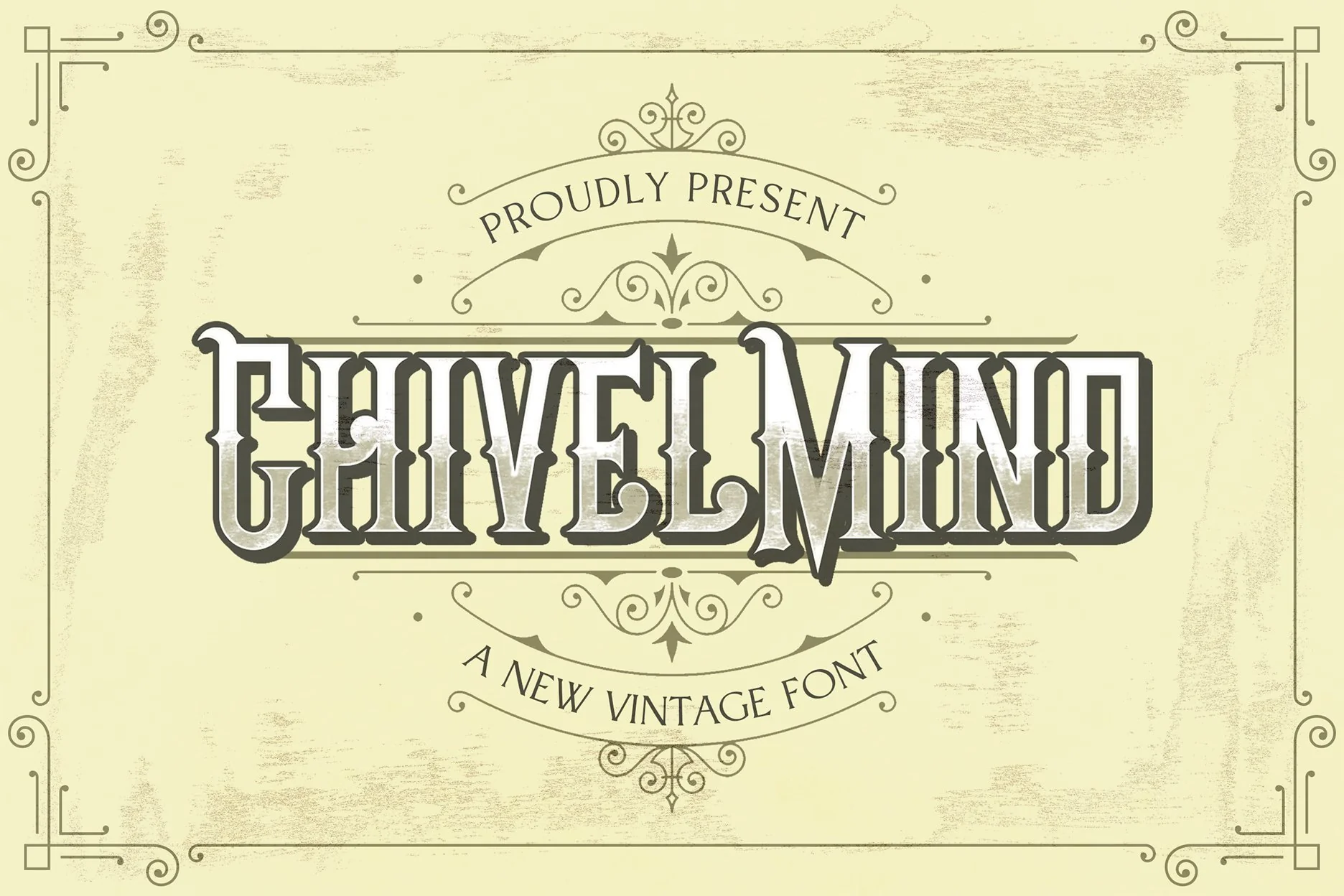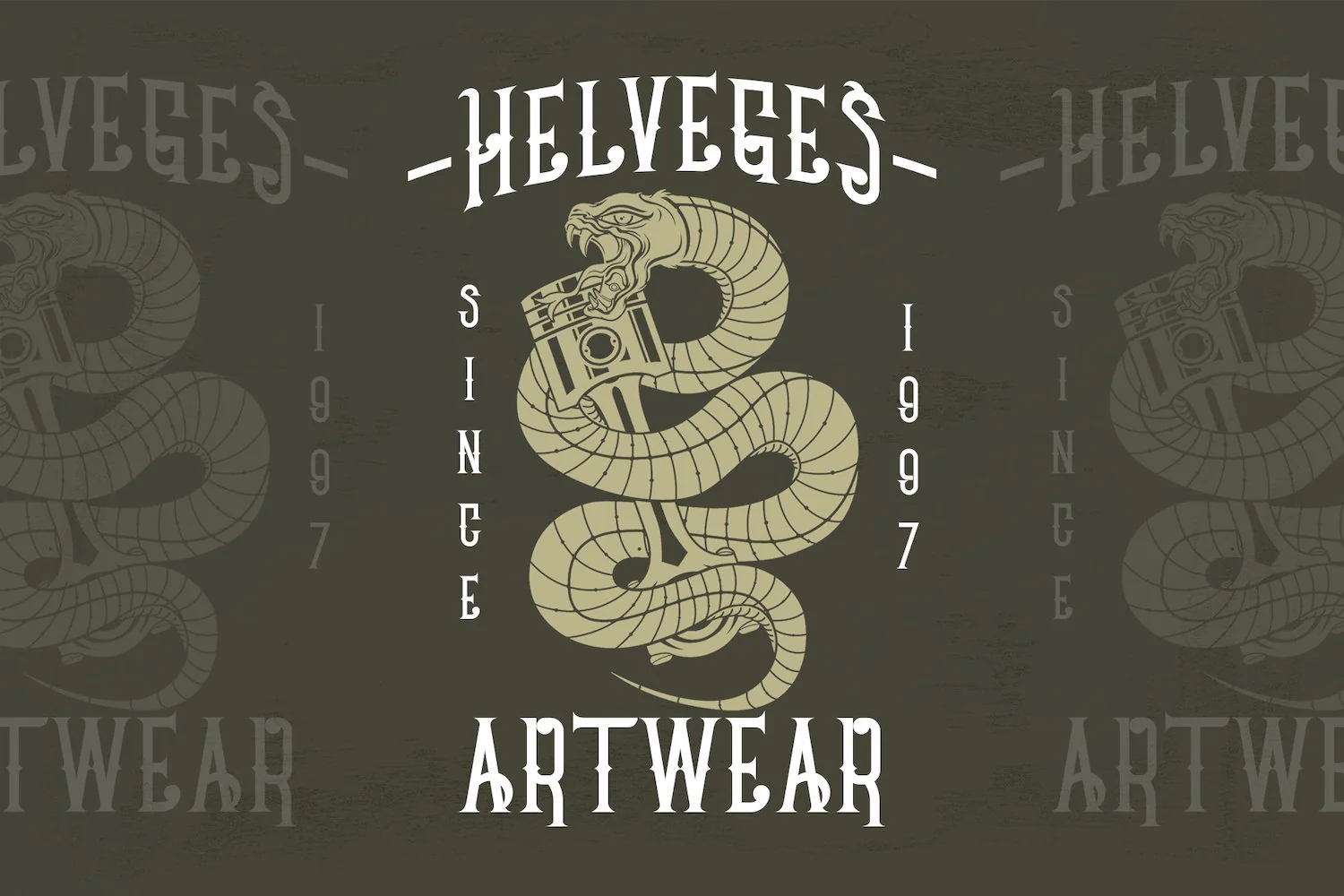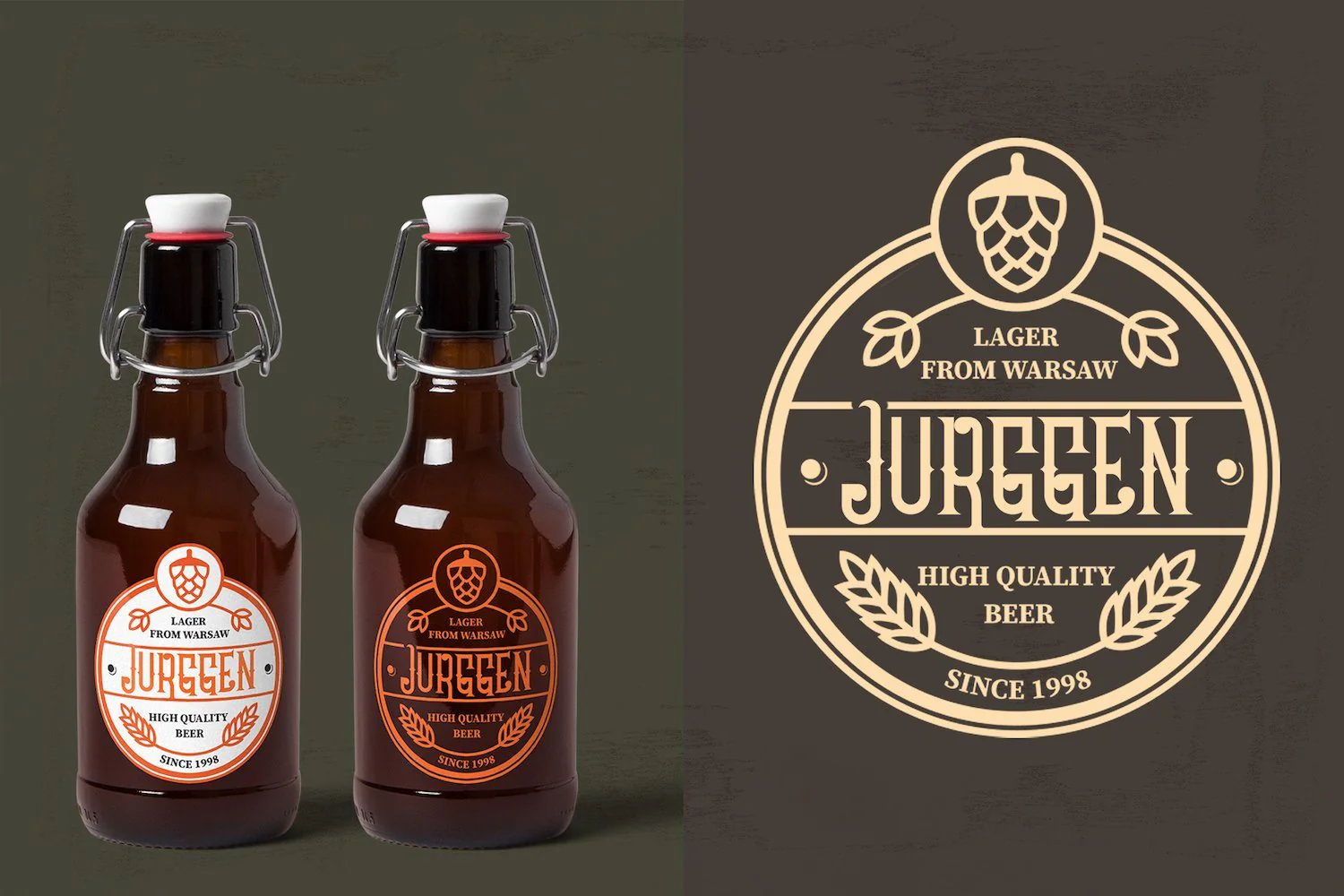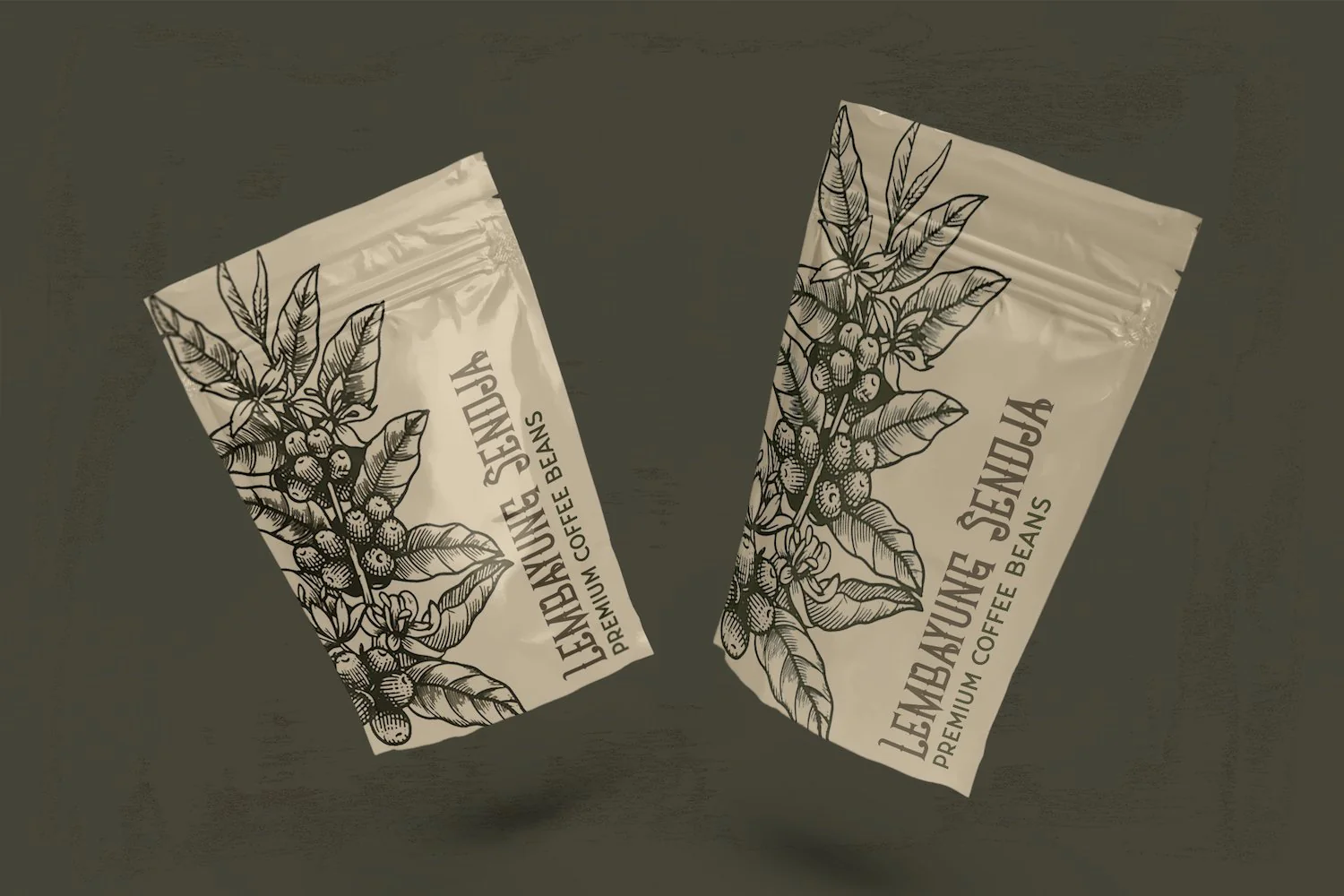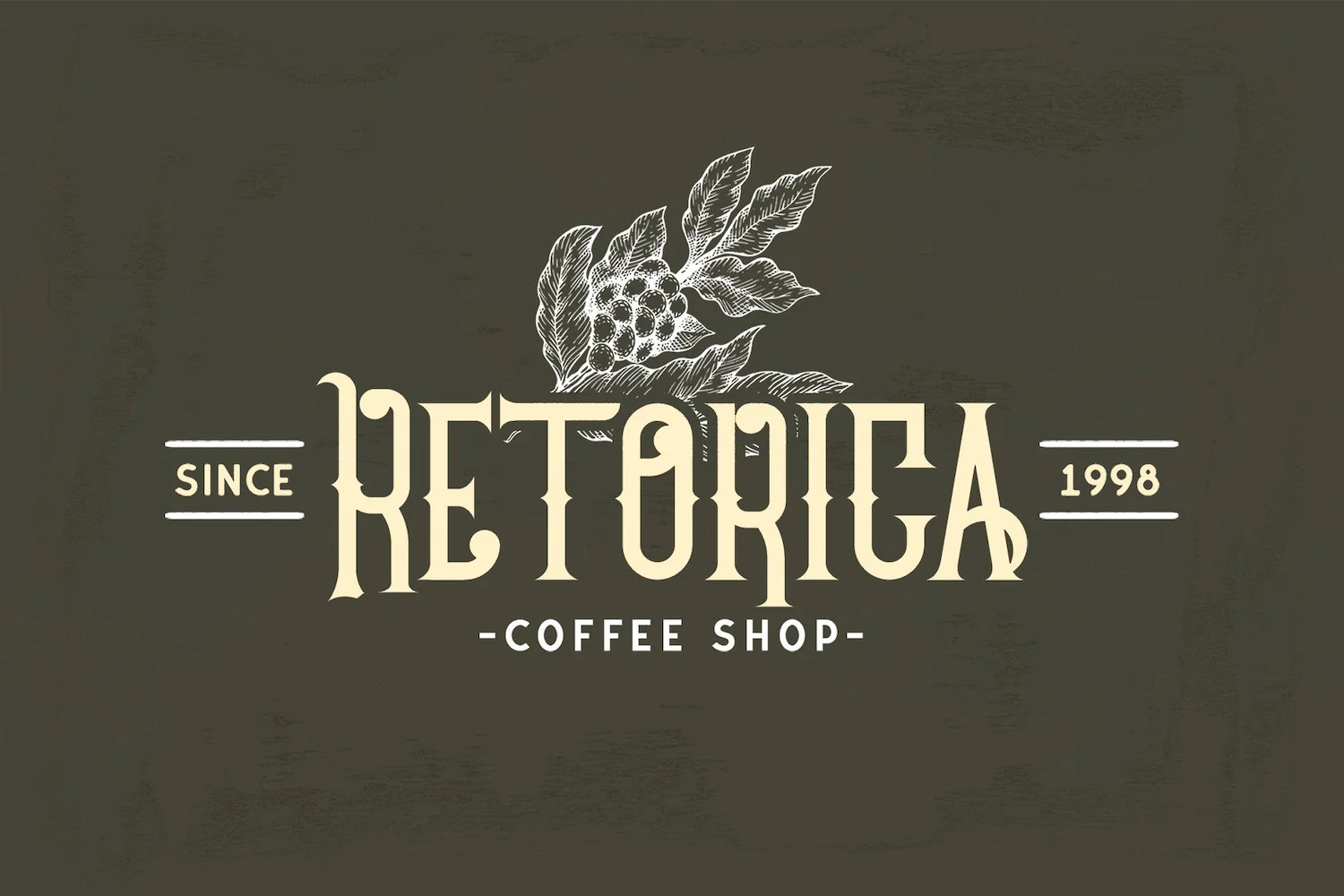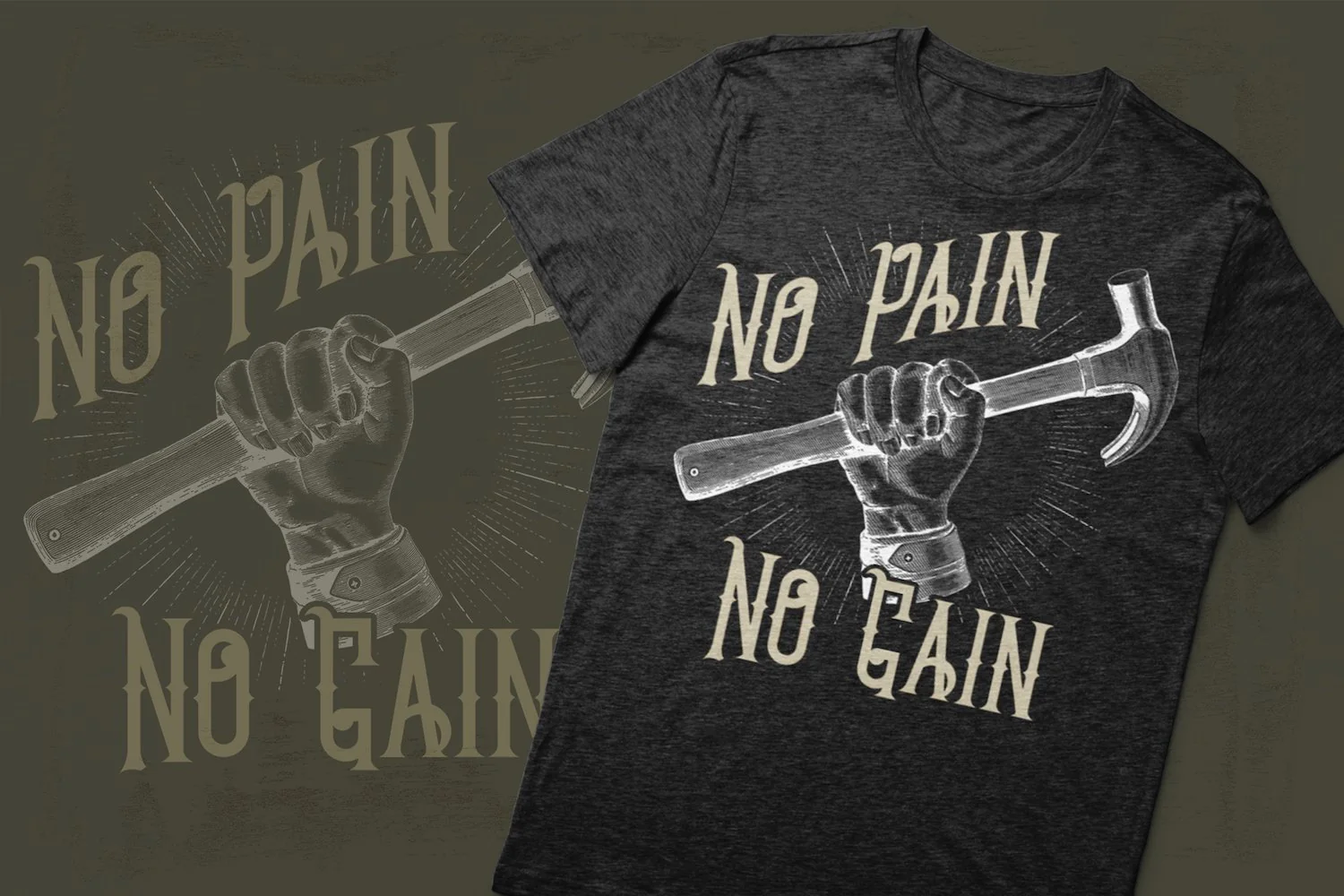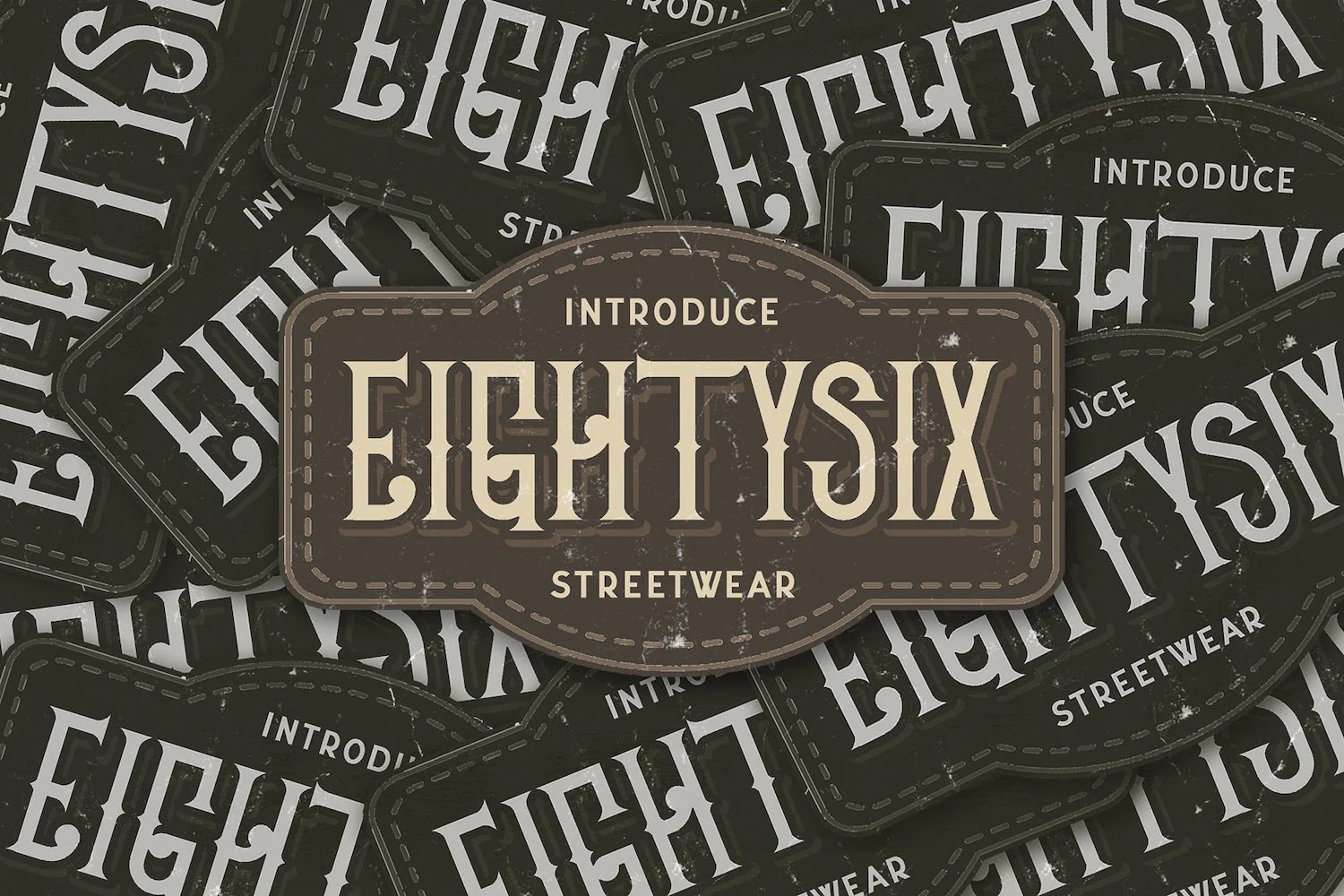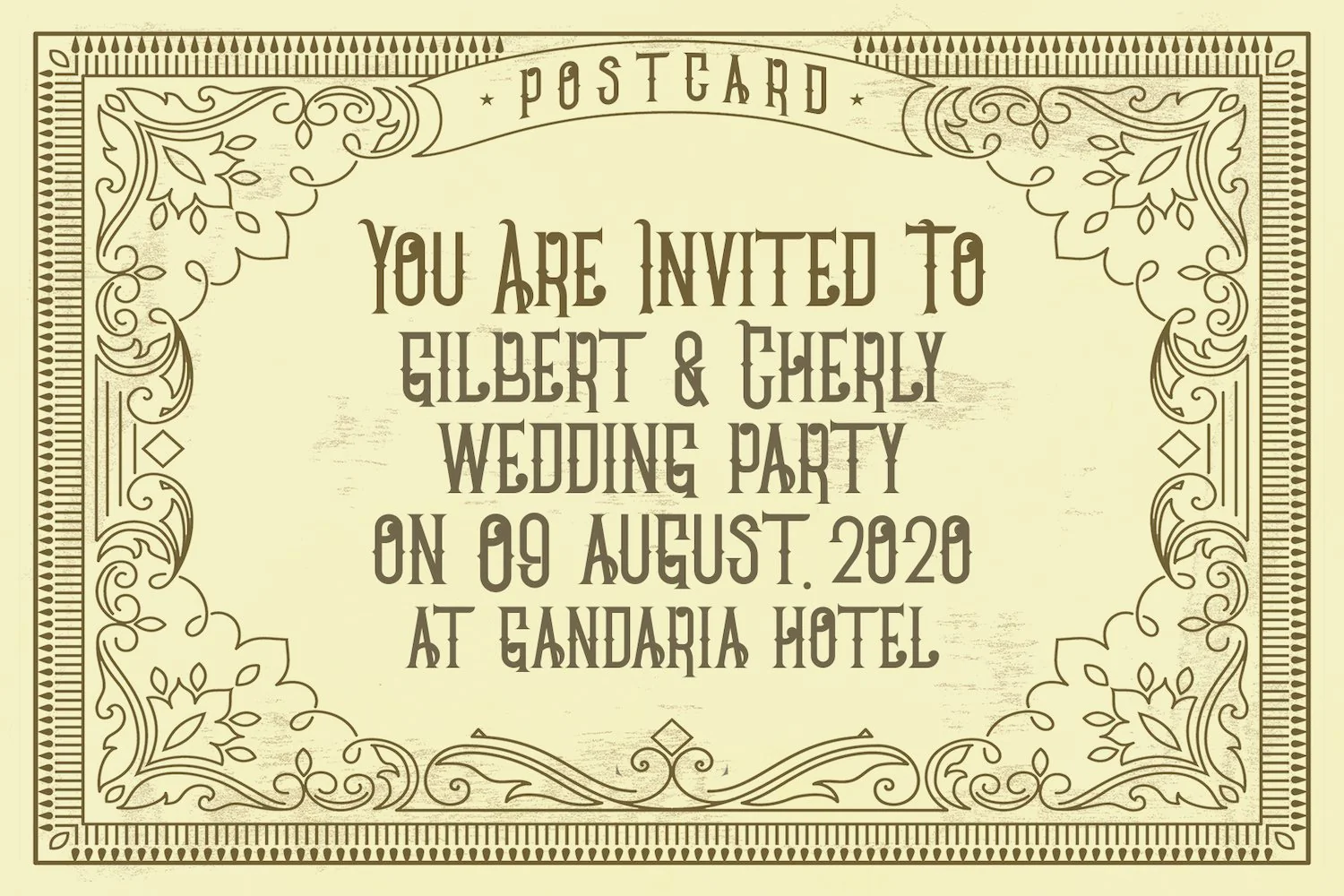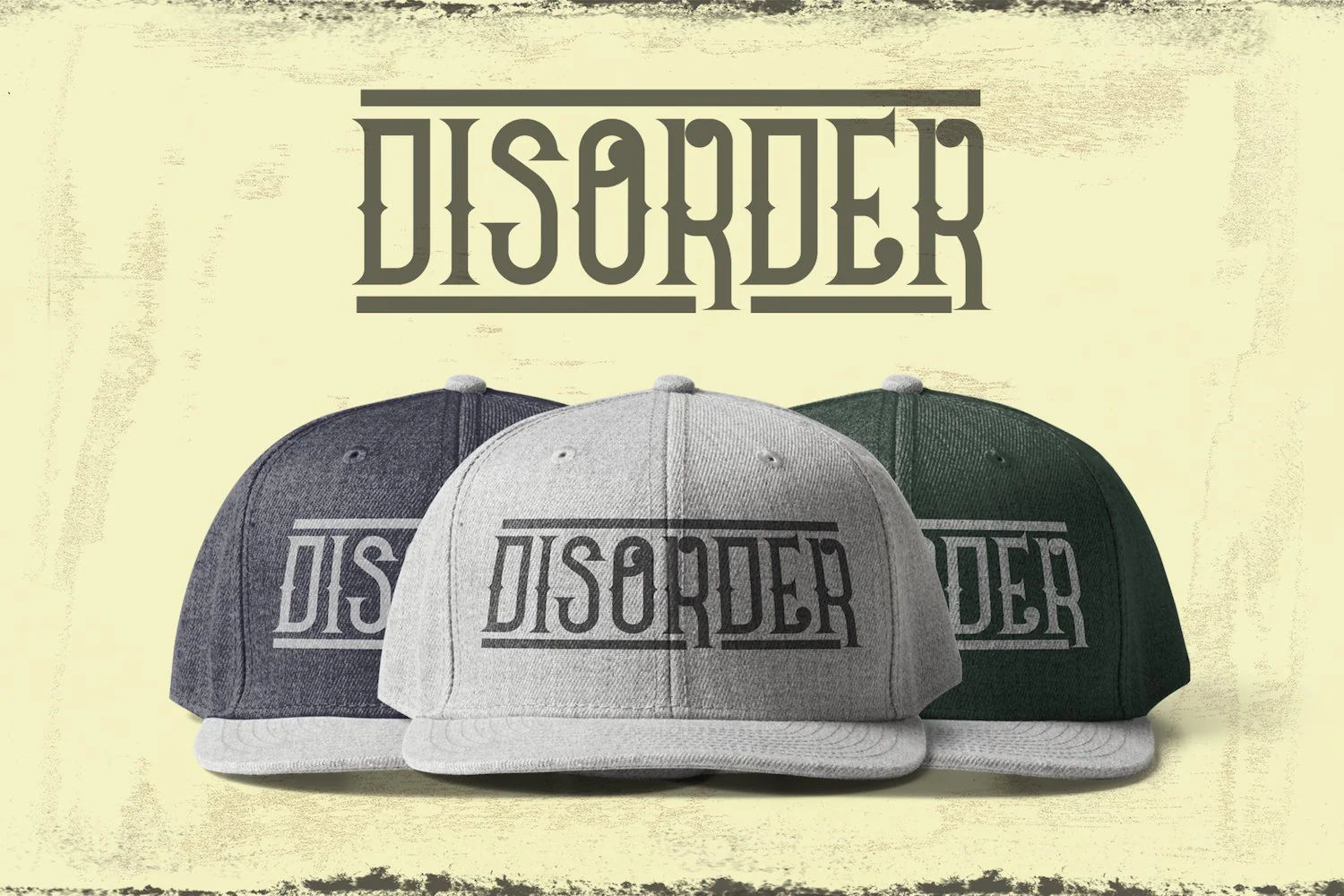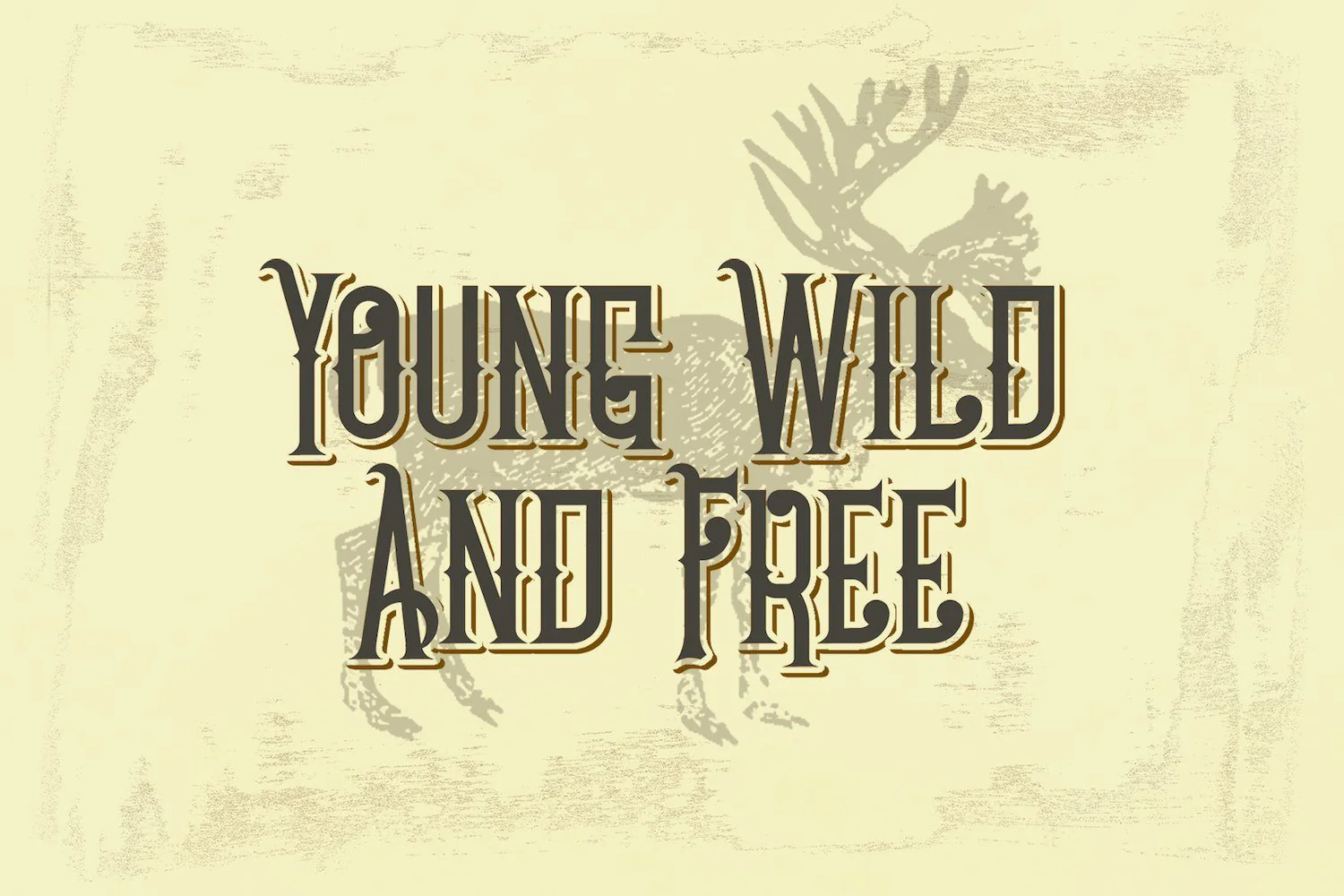
Chivel Mind - Vintage Font
Introducing Chivel Mind - Vintage Font
The Chivel Mind is a new vintage font. The combination of class and a nostalgic, retro feel make this font a true standout. It’s inspired by old-school caps and labels, and will turn any design project into a historical masterpiece.